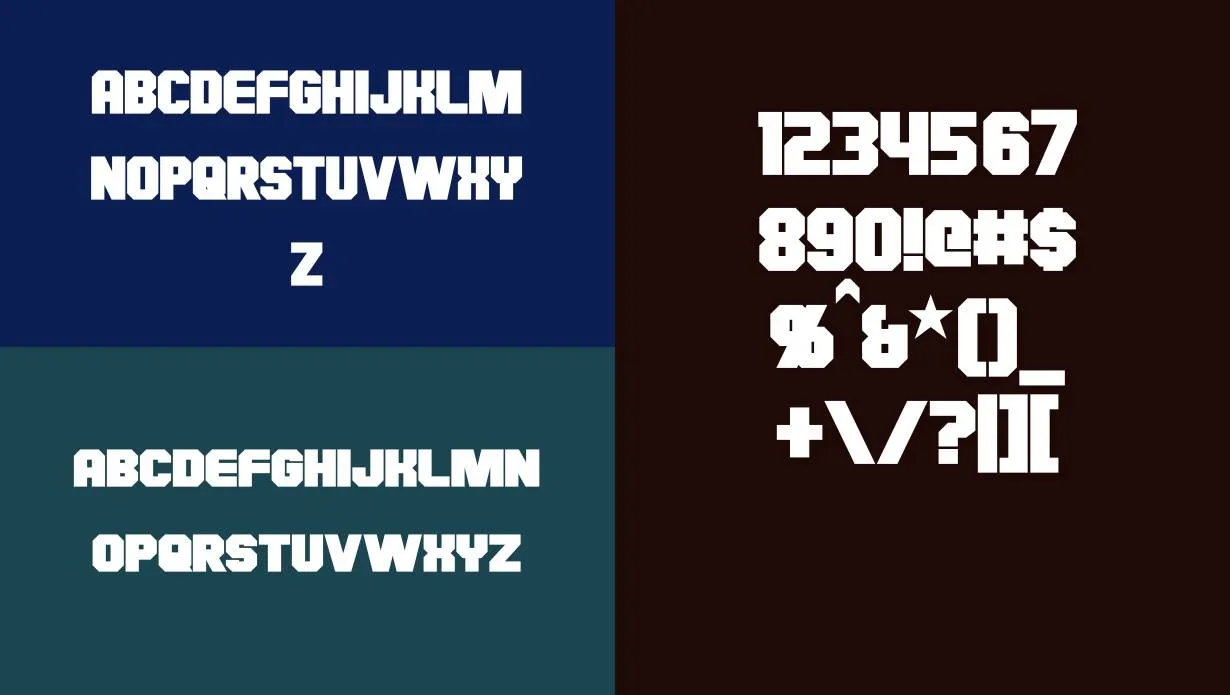
Hauser Font is a modern and versatile typeface with clean lines. It represents simplicity and readability. This font is designed by Alaric Garnier. You can download this font in OTF and TTF file versions that are compatible with Windows 10.
Name | Hauser Font |
Designer | Alaric Garnier |
Style | Techno |